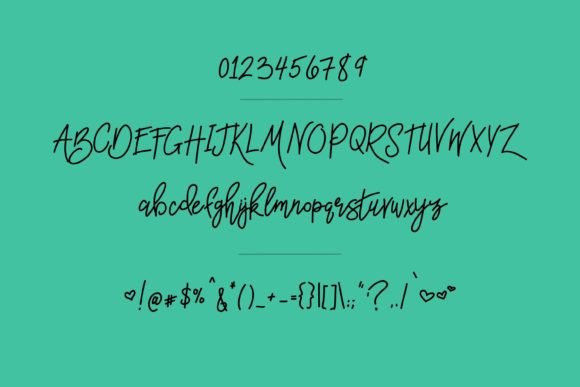
Introduction to Salty Kisses Font Font
Fonts play a crucial role in design, and the Salty Kisses Font font is a typeface that brings both character and versatility to any project. Whether you’re working on a branding project, a website, or a print design, the Salty Kisses Font font offers a unique style that can elevate your work.
Salty Kisses is a stylish handwritten font inspired by the breezy, carefree vibes of a tropical getaway.
With its smooth curves and playful flow, this font is perfect for beach-themed designs, invitations, logos, and more It adds a touch of warmth and a personal feel to any project.
Key Features of Salty Kisses Font Font
Why Choose Salty Kisses Font Font?
The Salty Kisses Font font is more than just a typeface – it’s a design tool that helps you communicate your message with style and clarity. Its unique character set and versatile design make it suitable for a wide range of applications, from elegant invitations to bold headlines.
With its carefully crafted letterforms and balanced proportions, the Salty Kisses Font font ensures readability and visual appeal across all mediums.
What makes Salty Kisses Font font special?
The Salty Kisses Font font stands out with its unique design, exceptional readability, and versatility across various design applications.